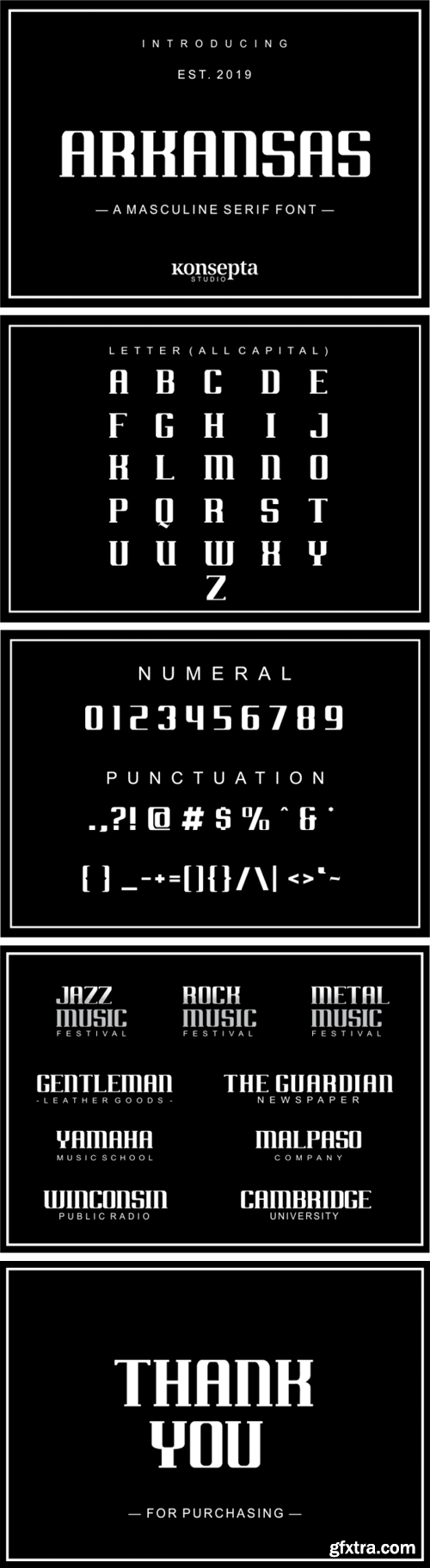
Arkansas 字体
Arkansas Font
The Arkansas is a masculine serif font. It has a manly, stable and conservative, vintage, and a little bit sporty look. It’s suitable for various design projects, specifically for music (if you have a band or music project) with manliness persona. But, it can also be used for a logotypes, newspaper or magazine headlines, and much more!